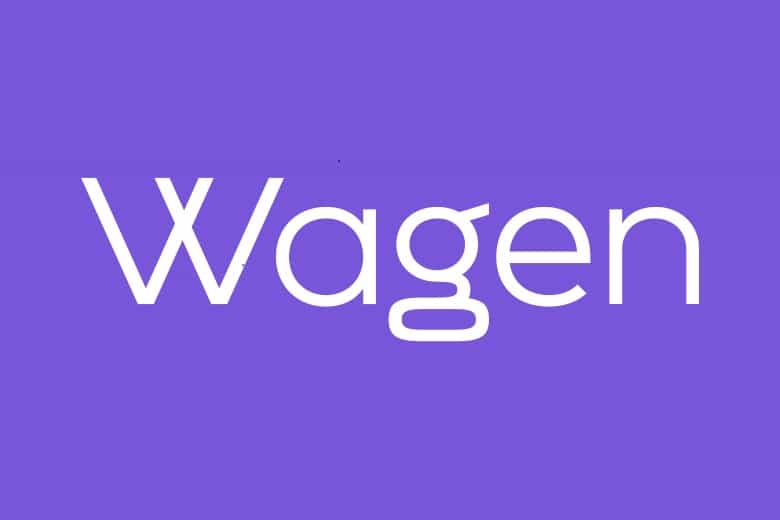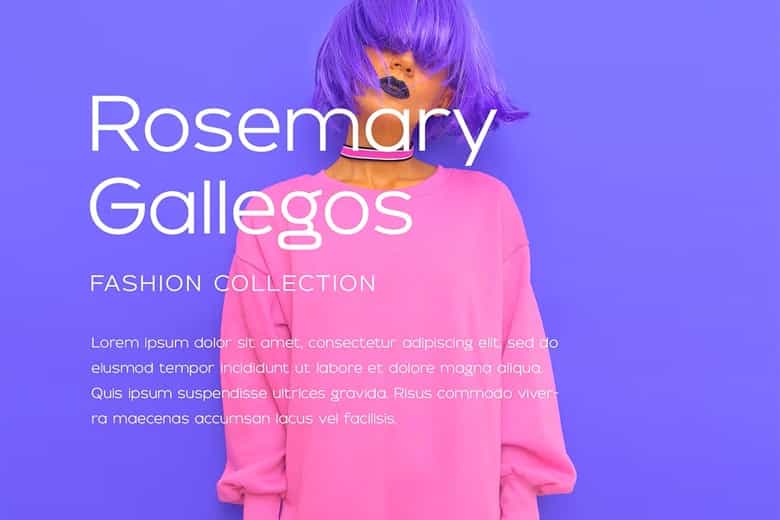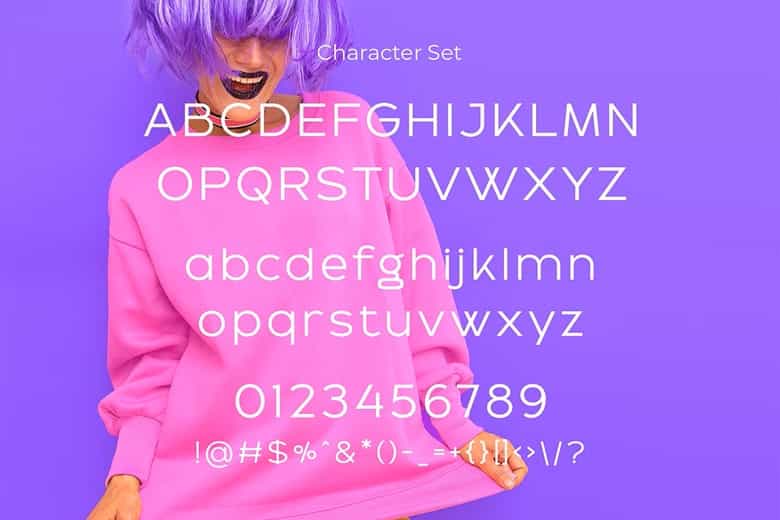
Wagen is a new font in sans-serif category which has been designed for branding and corporate identity purposes. It will mesmerize every logo, branding, headline or plain text! This font is ideal for logo designs, graphic prints for home accessories or products, labeling, magazine headlines – or anything that can use an elegant but casual font added on the top of a picture.